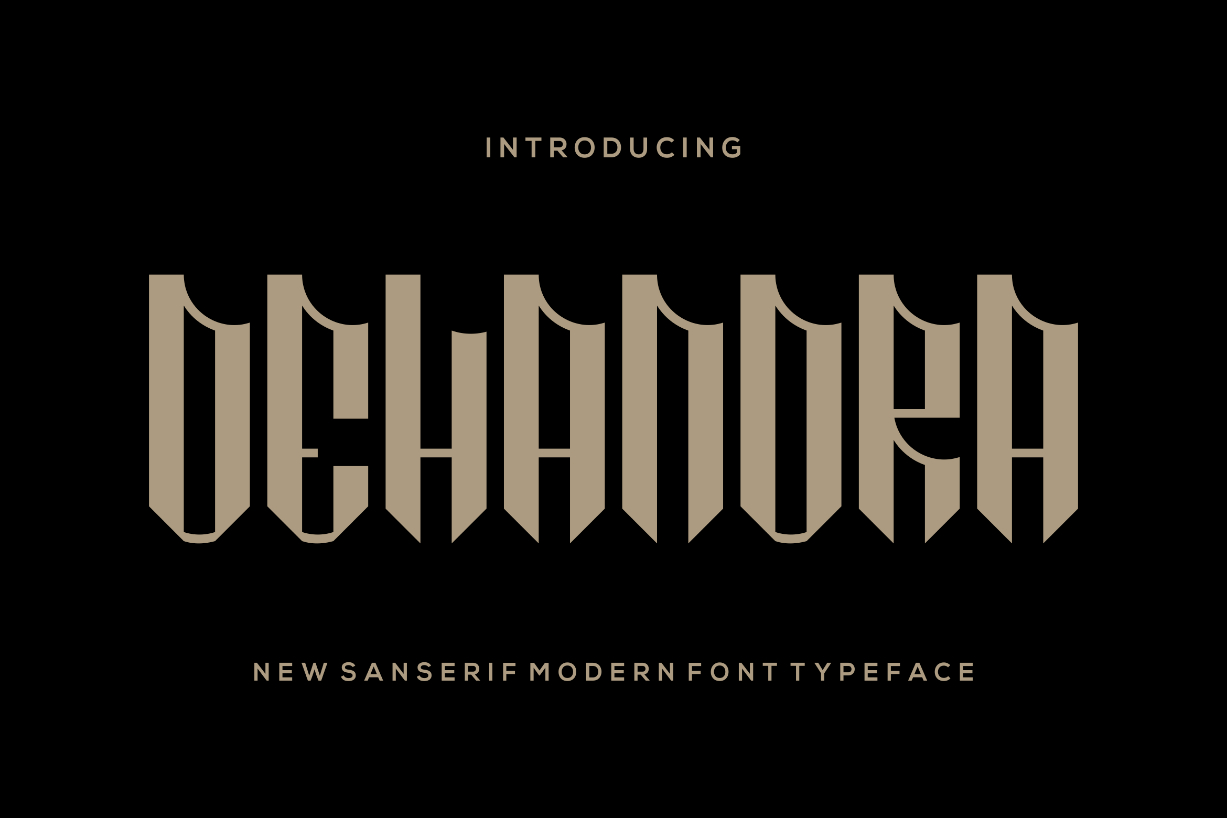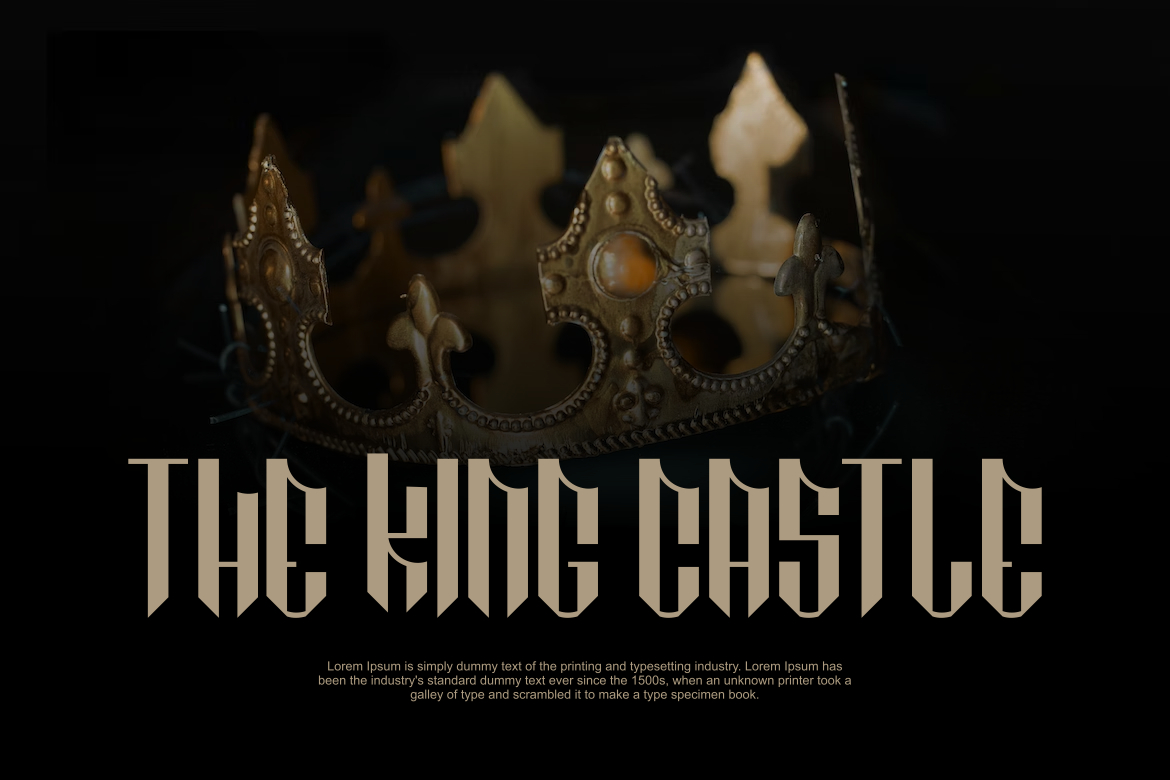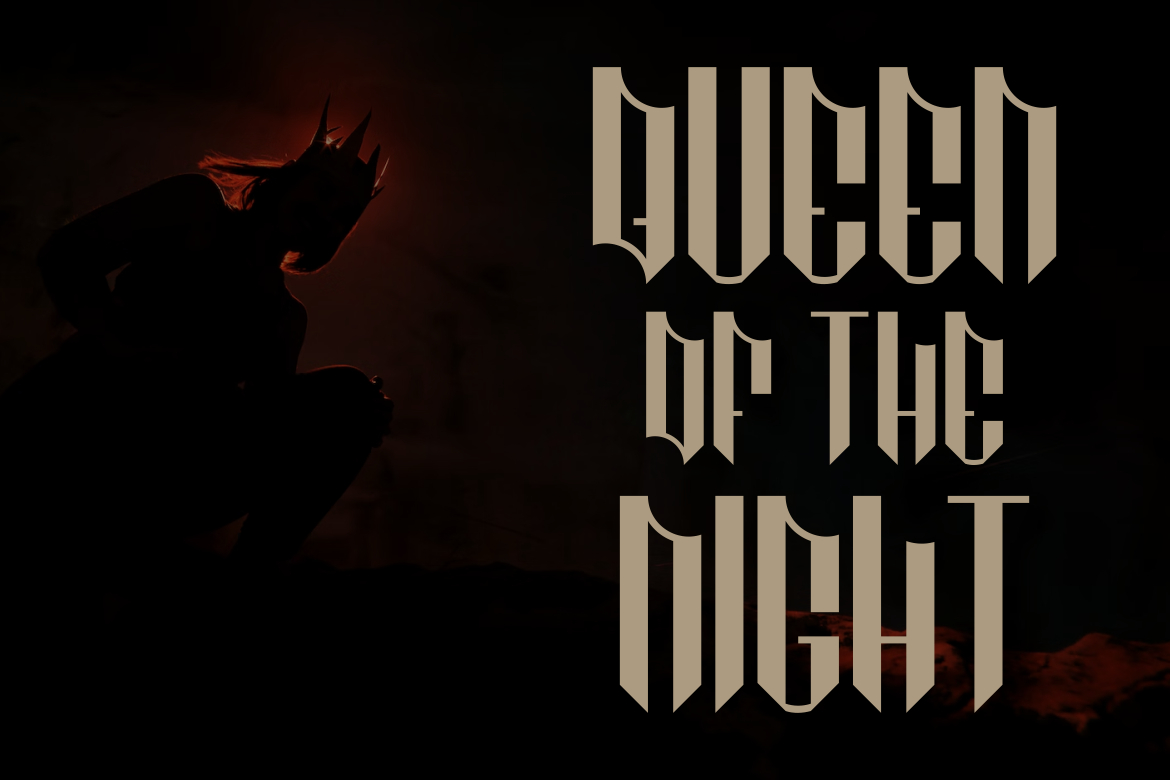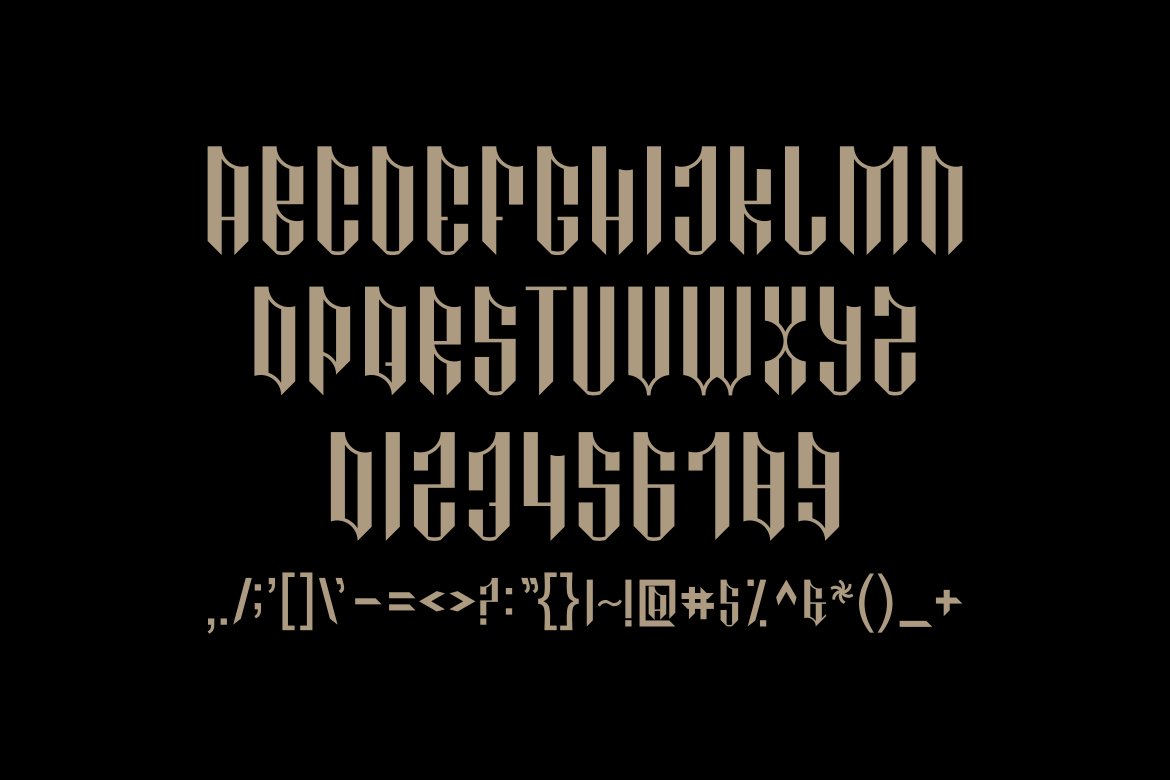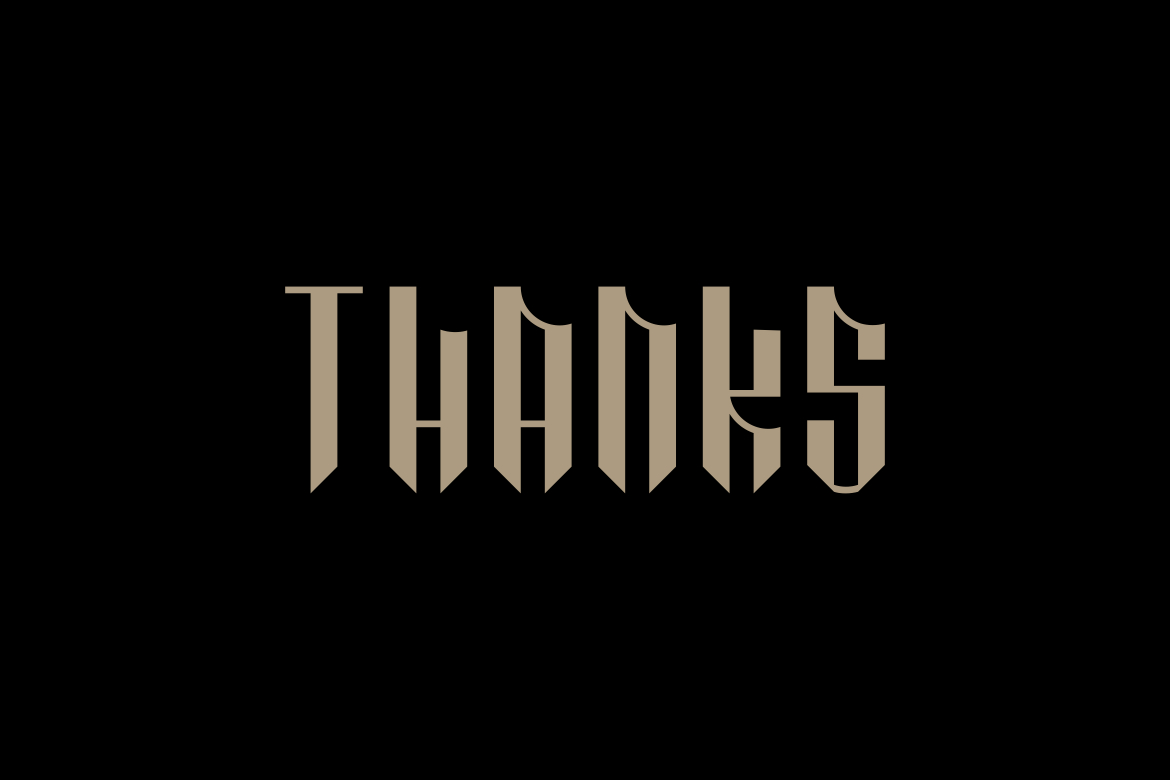
Dehandra Font
About Dehandra Font
Dehandra is a bold and authentic black letter font. The font is suitable for any branding project like logo, t-shirt printing, esports, and many more. It will look outstanding in a wide range of contexts.